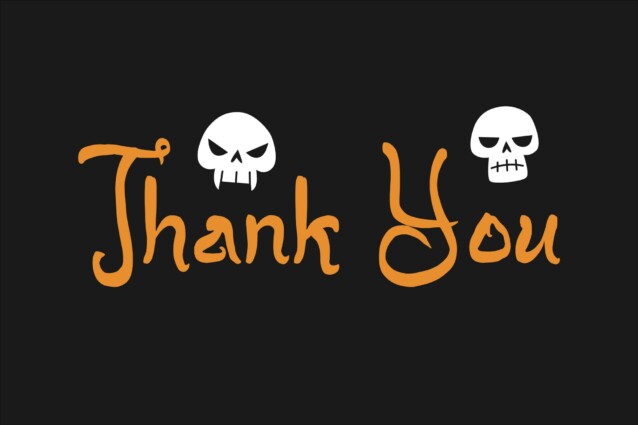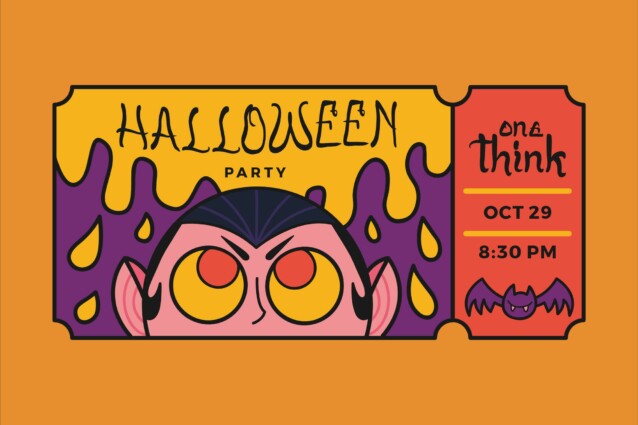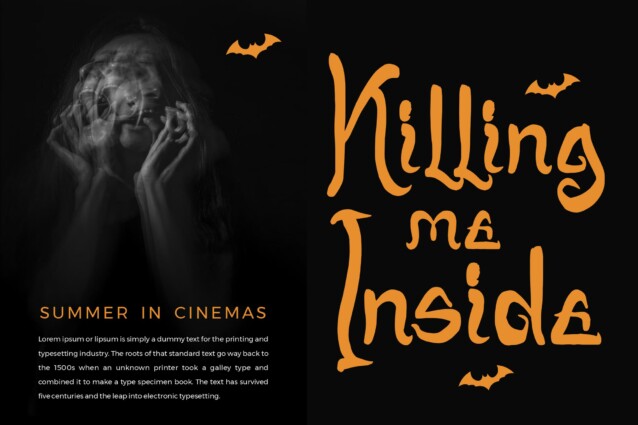
Broklige Spicy Font
Broklige Spicy Font is a Spooky Display Font, suitable for any projects such as: logos, branding projects, homeware designs, product packaging, mugs, quotes, posters, shopping bags, t-shirts, book covers, name card, invitation cards, greeting cards, label, photography, watermark, special events, and all your other lovely projects that need a beautiful script taste.